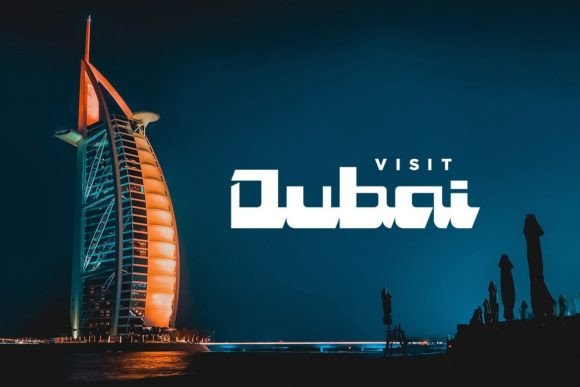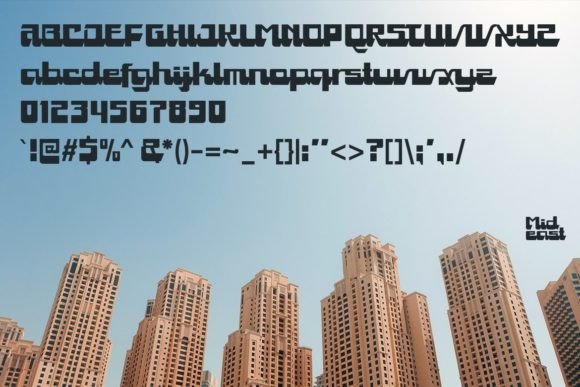
Introduction to Mideast Font Font
Fonts play a crucial role in design, and the Mideast Font font is a typeface that brings both character and versatility to any project. Whether you’re working on a branding project, a website, or a print design, the Mideast Font font offers a unique style that can elevate your work.
Mideast is inspired by the Middle East calligraphic shape, crafted into bold and script fonts.
Perfectly fit for Middle East Arabic design, hip hop fashion, logo, branding, push your visual to the edge and get ready to be the trendsetter .
Key Features of Mideast Font Font
Why Choose Mideast Font Font?
The Mideast Font font is more than just a typeface – it’s a design tool that helps you communicate your message with style and clarity. Its unique character set and versatile design make it suitable for a wide range of applications, from elegant invitations to bold headlines.
With its carefully crafted letterforms and balanced proportions, the Mideast Font font ensures readability and visual appeal across all mediums.
What makes Mideast Font font special?
The Mideast Font font stands out with its unique design, exceptional readability, and versatility across various design applications.